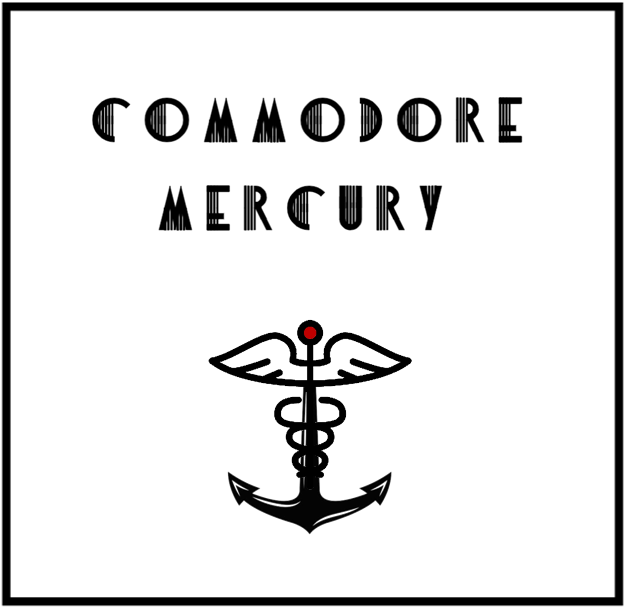
• putting a spin on an art deco sample found in an old typeface book. had some fun fitting that paper sample to the parameters used personally when making these little uniform fonts~
Nice combination (hehehe...)! Now I fully understand one of your recent comments.
Very nice looking Art-Deco font, Top Pick materials !!
Looks like Bifur by A.M. Cassandre! Really cool! :)
that was the goal! so glad you like it~